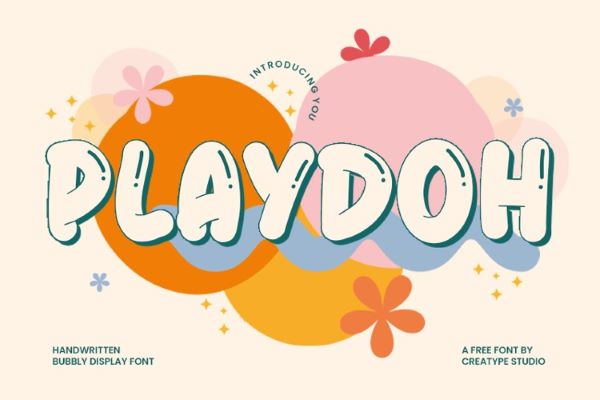
Playdoh Font
Playdoh Font is a playful display typeface inspired by soft, molded lettering and toy-like creativity. It features rounded, chunky letterforms that create a fun and cheerful personality. Ideal for children’s designs, packaging, posters, branding, and playful headlines, it delivers a lively visual style and stands out as a colorful and entertaining option within creative free fonts collections.
➤ Font Name: Playdoh
➤ Designer: Creatype Studio
➤ Style: Handwritten